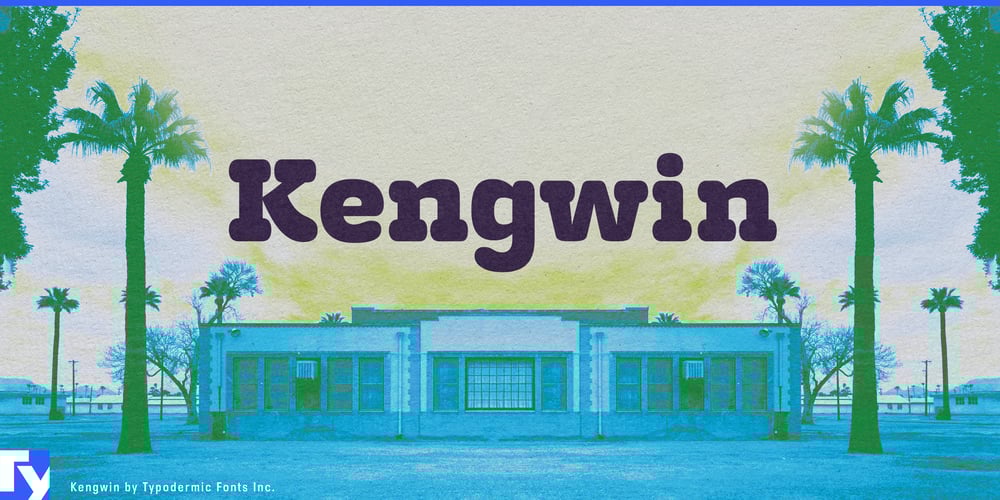
Kengwin Font Family was designed by Ray Larabie and published by Typodermic. Kengwin contains 1 styles and family package options. Kengwin bursts onto the typographic scene with an irresistible blend of boldness and charm, a font that demands attention not through aggression, but through sheer personality. This rounded slab serif typeface is a testament to the power of form, where each letter stands as a miniature monument to typographic ingenuity.At its core, Kengwin embodies a paradox—it’s both imposing and inviting. The font’s pleasantly plump curves soften what could otherwise be an overwhelming presence, creating a visual voice that speaks with authority yet welcomes engagement. This duality allows Kengwin to command attention without alienating the viewer, a rare quality in the world of bold typography. What truly sets Kengwin apart is its ability to infuse warmth and vitality into its robust framework. Each character exudes a zest for life, as if the very letters are barely containing their enthusiasm. This quality makes Kengwin more than just a font—it’s a mood, an attitude, a declaration that life should be lived boldly and joyfully.Kengwin’s linguistic versatility is equally impressive. Supporting a wide array of Latin-based European writing systems, it stands ready to communicate its exuberant message across borders and cultures. From the vibrant streets of Barcelona to the cozy cafés of Prague, from the bustling markets of Istanbul to the serene fjords of Norway, Kengwin speaks with a consistent voice, ensuring that your message retains its impact and personality regardless of the language. This typeface finds its natural habitat in designs that need to make a statement without sacrificing approachability. It’s the perfect choice for brands that want to project confidence and friendliness in equal measure. In logo design, Kengwin can transform a simple wordmark into a memorable brand asset. For editorial use, it creates headlines that don’t just inform—they entice and excite.Embrace Kengwin and watch as it transforms your designs into celebrations of boldness and warmth. From eye-catching posters that demand a second look to user interfaces that feel instantly welcoming, Kengwin stands ready to articulate your vision with unmatched verve and personality. In a world where typography often gravitates towards either stark minimalism or aggressive maximalism, Kengwin carves out its own niche. It reminds us that strength doesn’t have to be intimidating, that confidence can be warm, and that making a big impression doesn’t mean sacrificing charm.